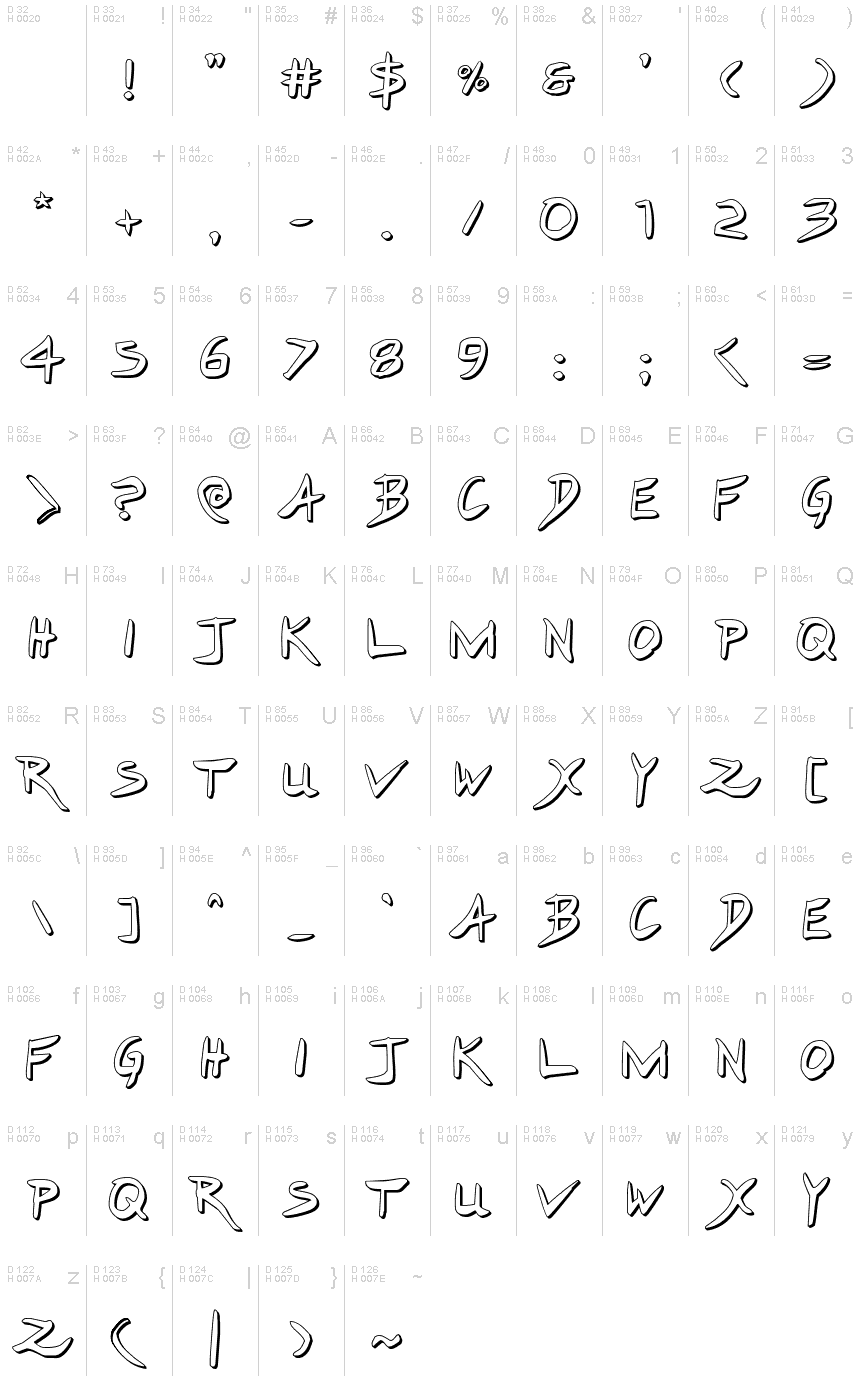
Hakturus 3D Regular
Hakturus 3D, a captivating creation by Iconian Fonts, brings a unique blend of charm and dimension to your designs. With its handwritten style and intricate 3D script, this font adds depth and character to any project. Perfect for branding, invitations, or posters, Hakturus 3D effortlessly stands out with its artistic flair. Let your creativity soar as you explore the possibilities this font offers – from playful children's books to trendy fashion magazines. Unleash the power of Hakturus 3D and elevate your design projects to new heights.